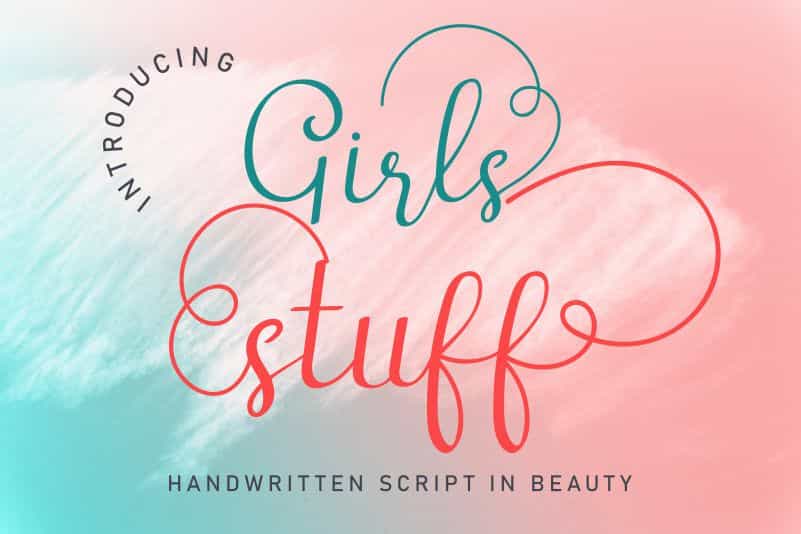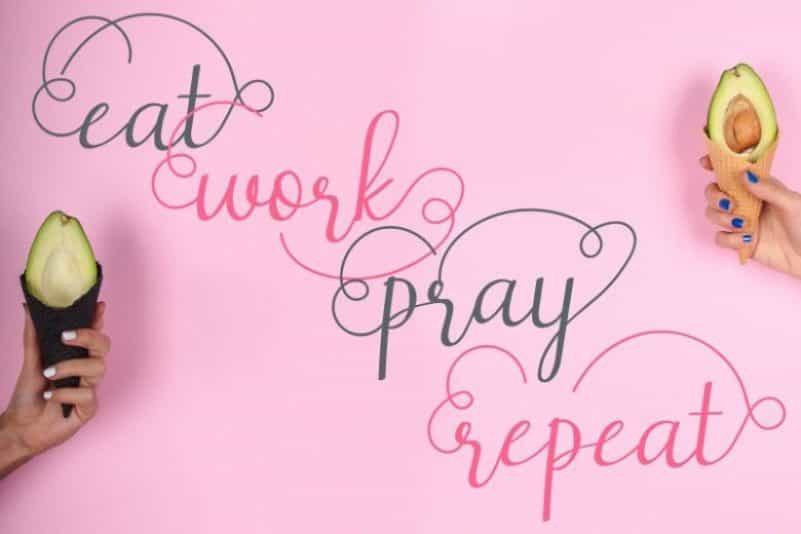
Girls Stuff Font is a beautiful font script font. It has a classy, elegant and modern touch which can be applied in logos, branding, invitations, cards, wedding designs, social media, and any other design that requires an element of handwriting.